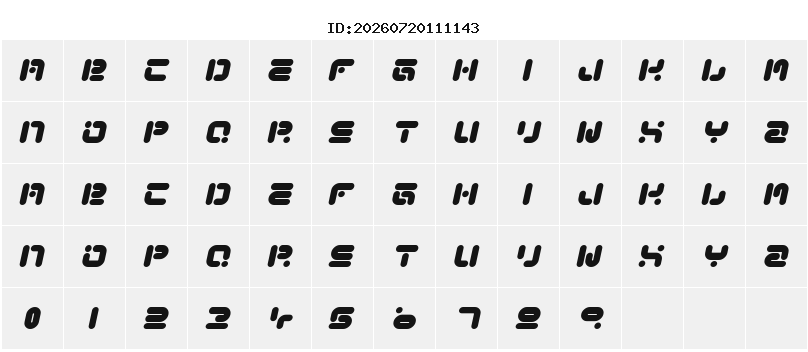
Funky Knut Preview
• Font Name: Funky Knut
• Full Font Name: Funky Knut
About Funky Knut.ttf
Funky Knut.ttf is a modern, elegant sans-serif font designed for ultimate readability and visual harmony. Perfect for branding, headlines, web design, and print materials.